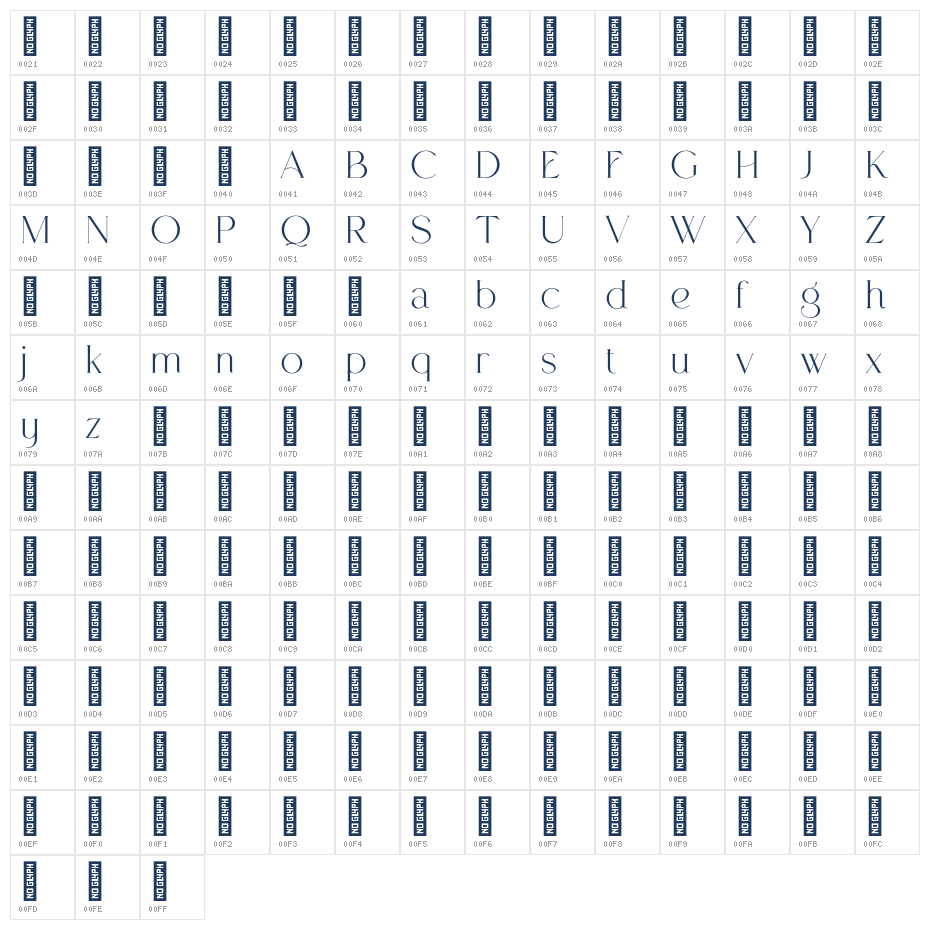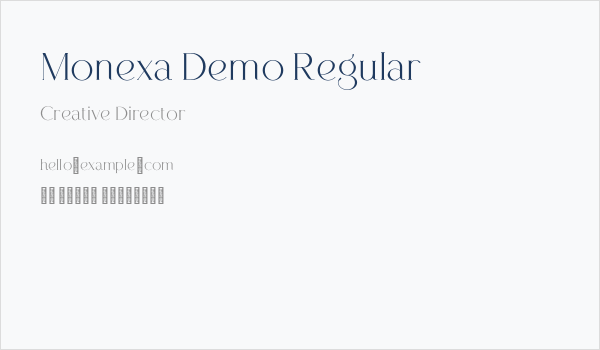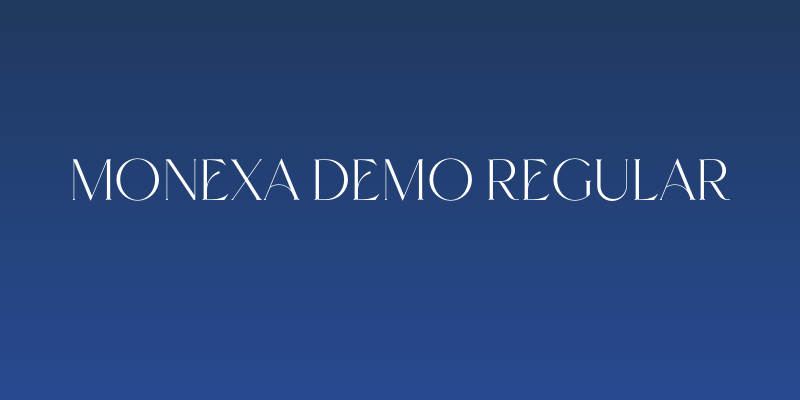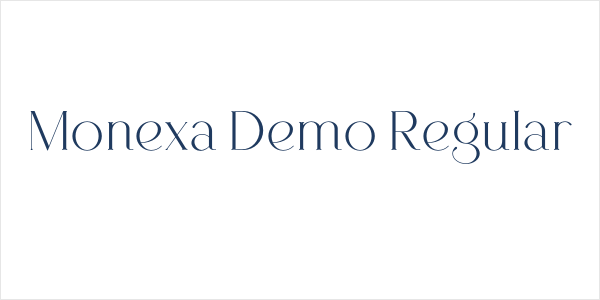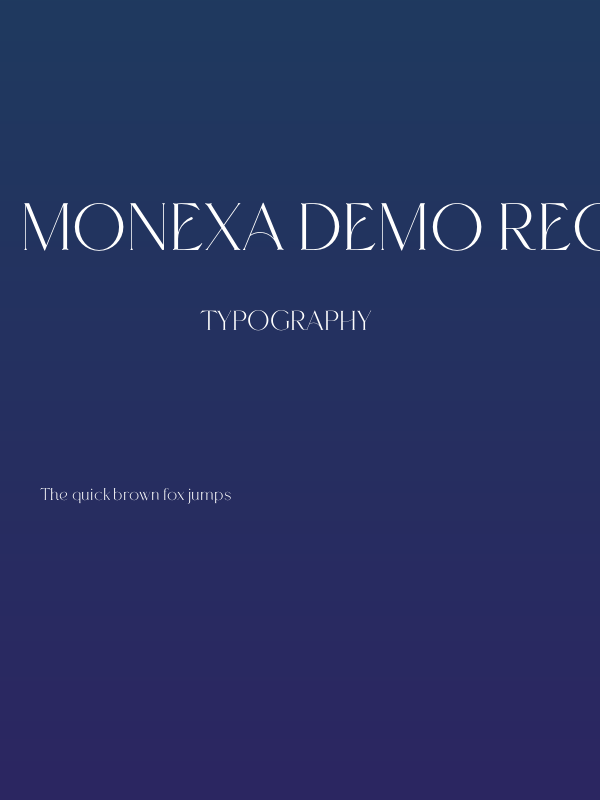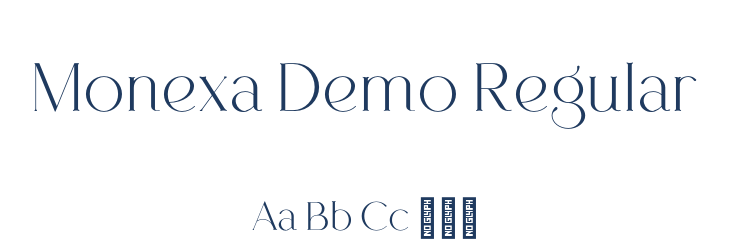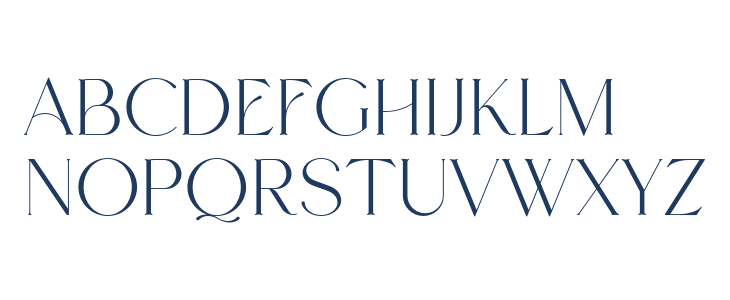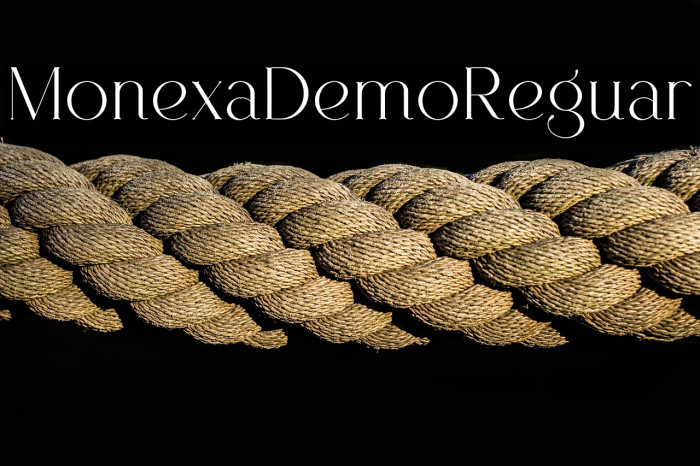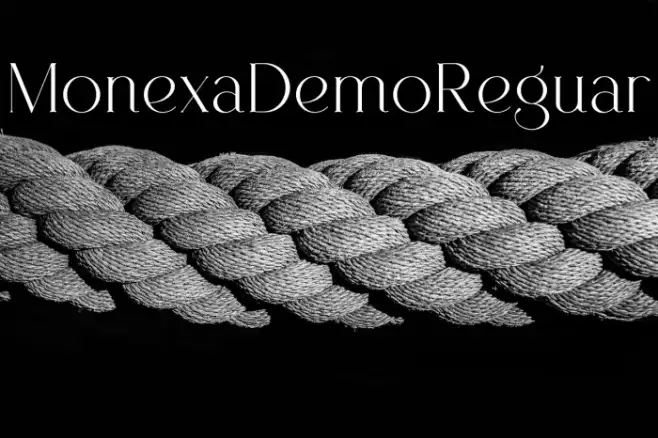
Monexa Demo Regular Font
Monexa Demo Regular Description
Elegant, serif font with high contrast and thin strokes, featuring a refined and sophisticated style.
| Overall Style | Elegant, Classic |